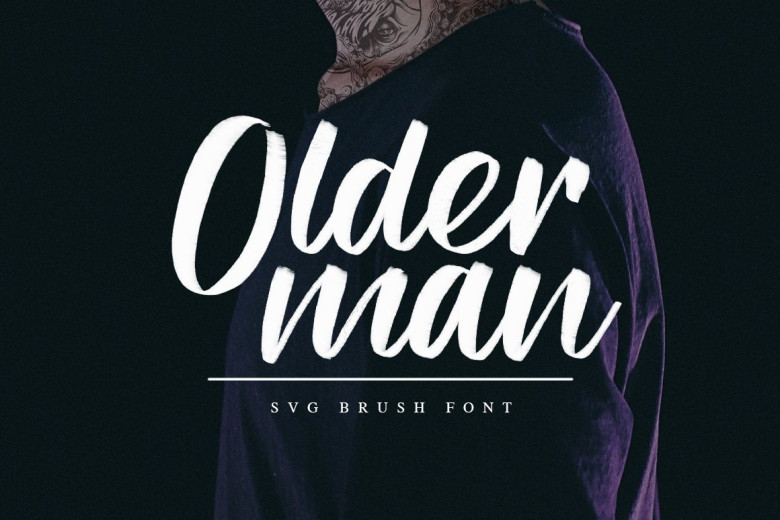
Olderman Font
Give your designs an authentic brush-handcrafted aesthetic with this “Olderman SVG brush font”, ideal for signatures, stationery designs, logos, typography quotes and magazine or book covers. Additionally, this font can also be used to create flyers, clothing branding design packages packaging etc.
Olderman SVG Brush Font